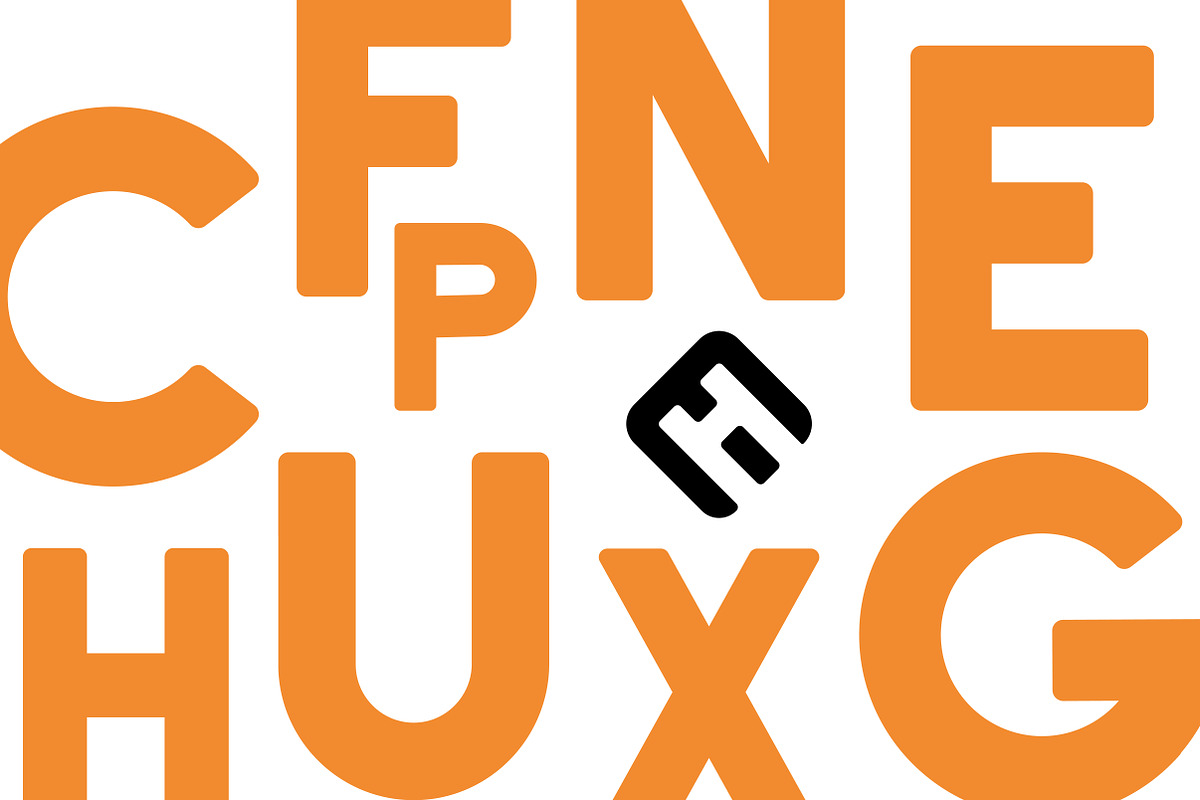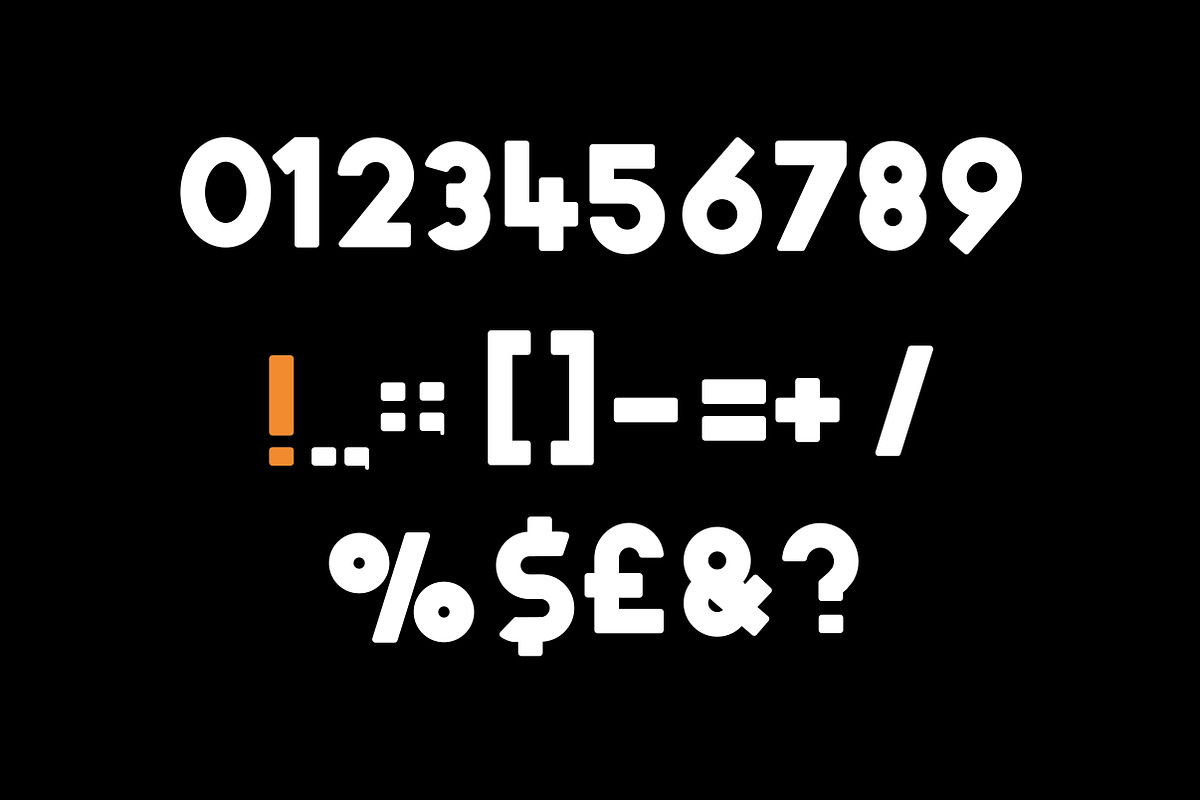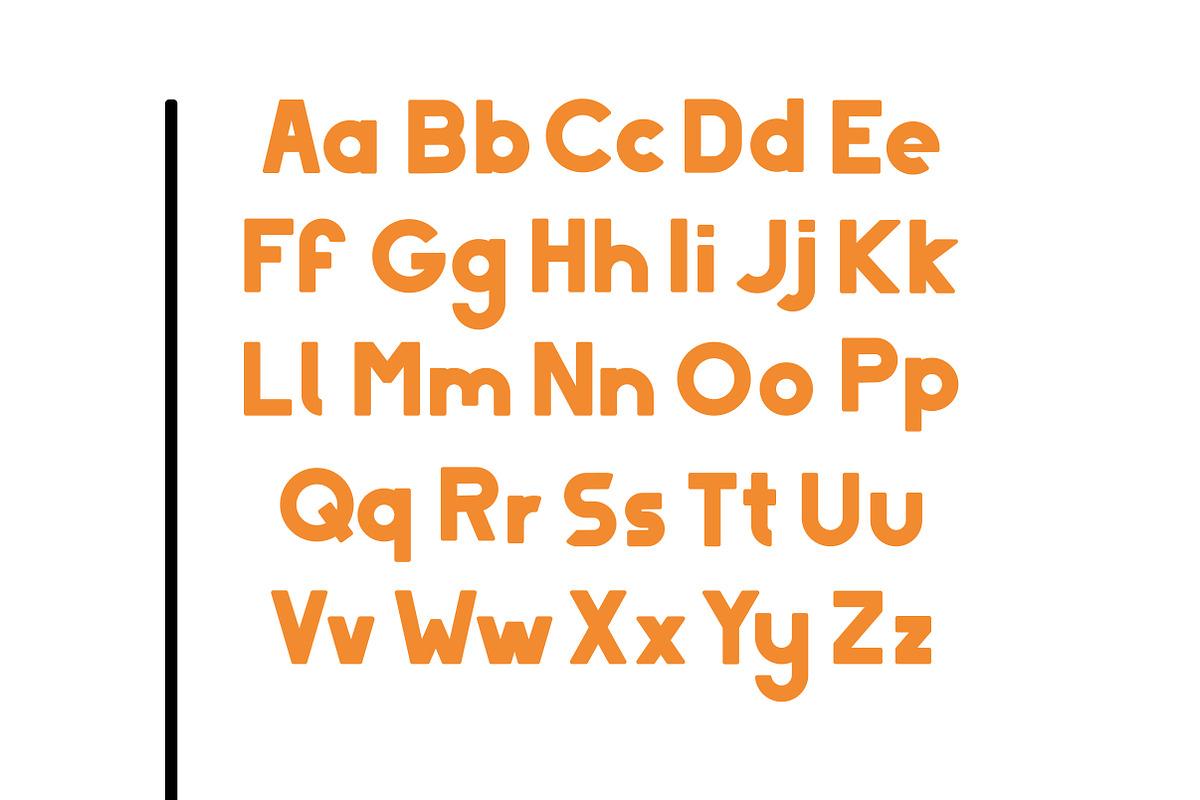
Lucid Typeface
Lucid Typeface by MikeHill is a font selected for branding, posters, packaging, typography.
- Lucid is a sansserif typeface that comes in both Upper + Lower case, Numerals and punctuation.
Why Lucid Typeface is worth a look
Lucid Typeface by MikeHill fits naturally into Branding, posters, packaging, typography.